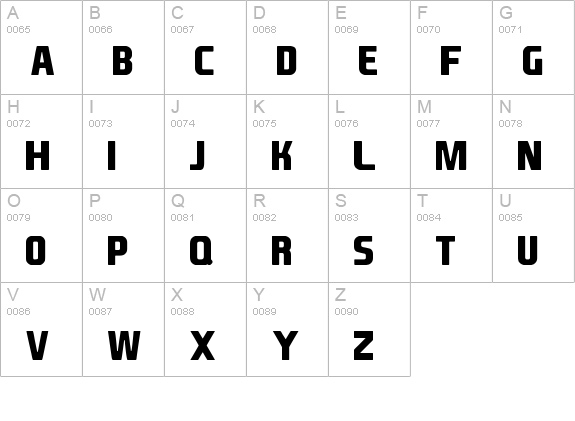
Introducing the magnificent Sports EA Sports font, the perfect companion for all your sporting endeavors! This dynamic and energetic font is designed to capture the excitement and passion of the sports world, making it an ideal choice for everything from team logos and jerseys to event posters and digital media. With its bold and powerful letterforms, Sports EA Sports font commands attention and exudes a sense of strength and athleticism. Each character is meticulously crafted to evoke the energy and spirit of various sports, ensuring that your designs will stand out from the crowd. But what makes Sports EA Sports font even more impressive is that it is available for free! That's right, this incredible font can be yours without spending a dime. Simply head over to FontsMarket.com and download this fantastic font to add a touch of sporting excellence to your projects. Whether you're a professional designer, a sports enthusiast, or simply someone who appreciates the artistry of typography, Sports EA Sports font is a must-have addition to your font collection. Its versatility and striking visual impact make it suitable for a wide range of applications, ensuring that your designs will leave a lasting impression. So don't miss out on this incredible opportunity to enhance your sports-related designs with the Sports EA Sports font. Download it for free at FontsMarket.com and let your creativity soar to new heights. Get ready to score big with this remarkable font!